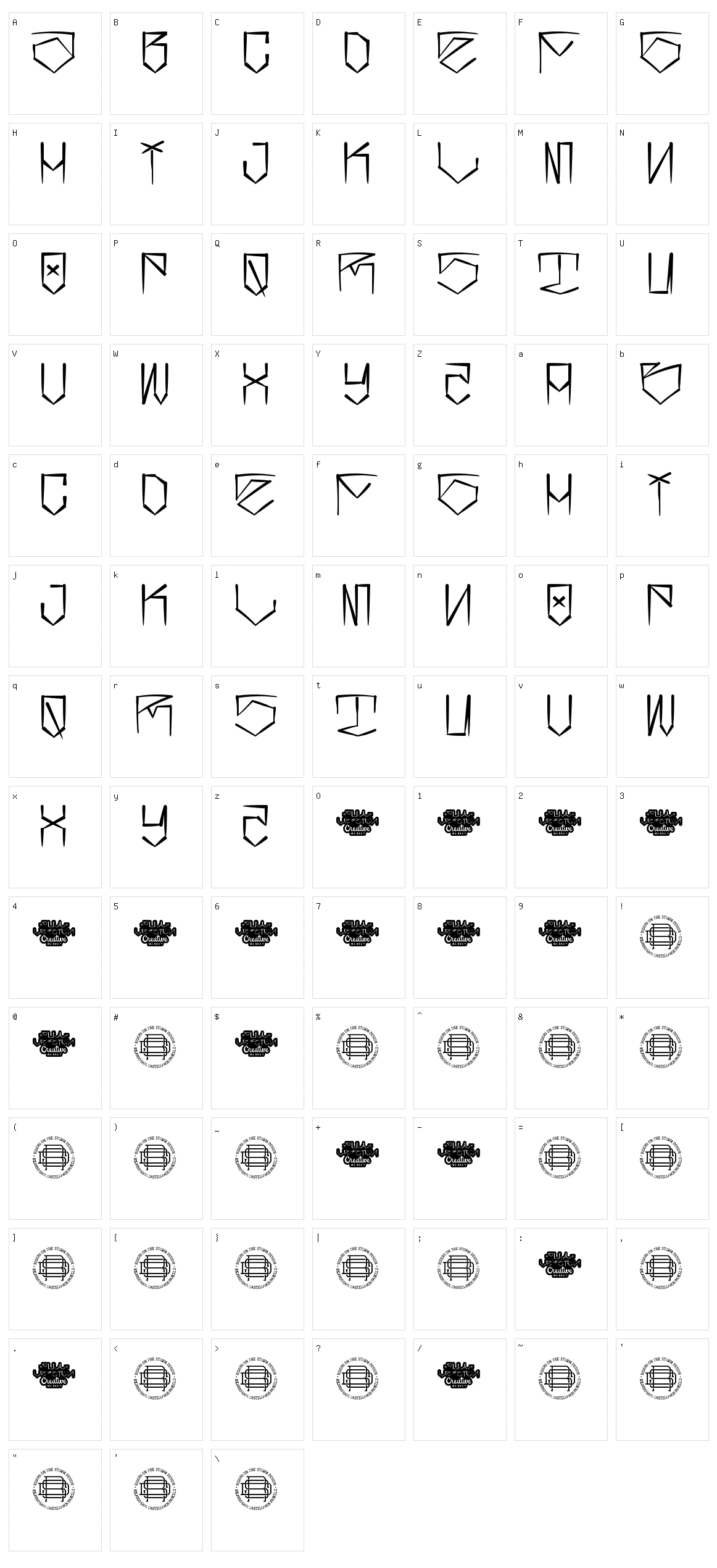
Street Life is a typeface inspired by the style of letters of the urban culture of Cholos / Gangs,
by Ricardo Saul Castellanos Pabello "Richie Mx" in the design studio "Riders on the Storm Design"
Street Life es una tipografía inspirada en el estilo de letras de la cultura urbana de Cholos / Pandillas,
creada por Ricardo Saul Castellanos Pabello "Richie Mx" en el estudio de diseño "Riders on the Storm Design"